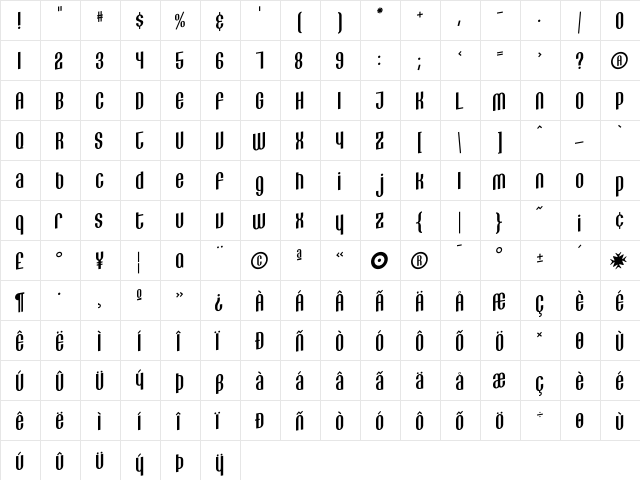
Lithia Titles
Design Context for Lithia Typeface
Lithia is a composed and adaptable typeface that performs quietly and consistently across a wide range of design contexts.